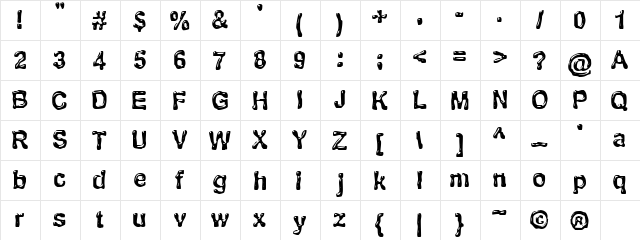
BN M@TAN Regular
Design Context for BN M@TAN Typeface
BN M@TAN is a composed and adaptable typeface that performs quietly and consistently across a wide range of design contexts.